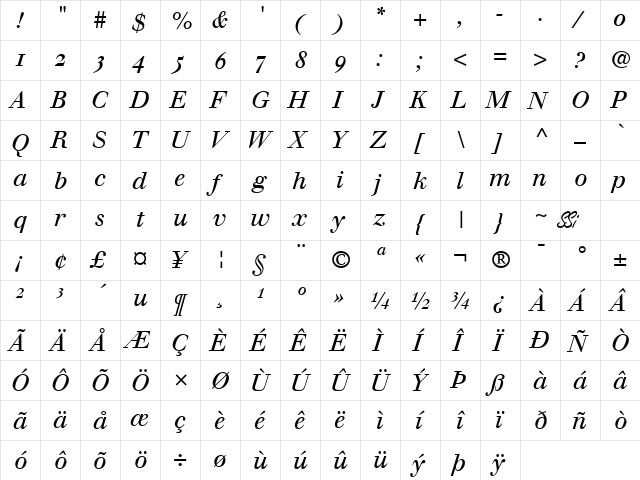
Walbaum OldStyle SSi Italic Oldstyle Figures
Design Context for Walbaum OldStyle SSi Typeface
Walbaum OldStyle SSi carries the refined structure of traditional serif typography, with bracketed terminals and considered proportions that communicate credibility and craft. The slanted form adds forward momentum and visual energy.